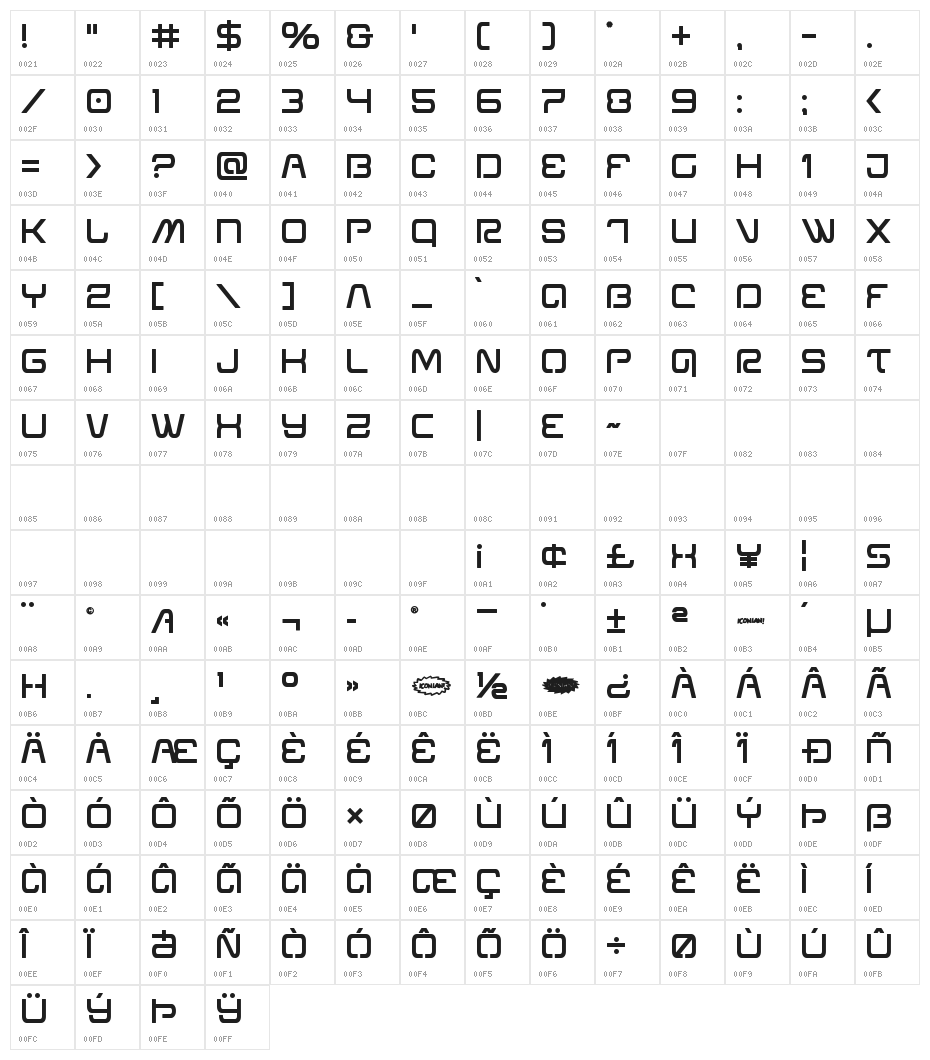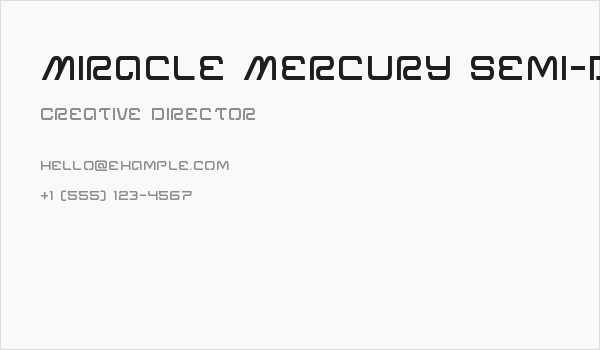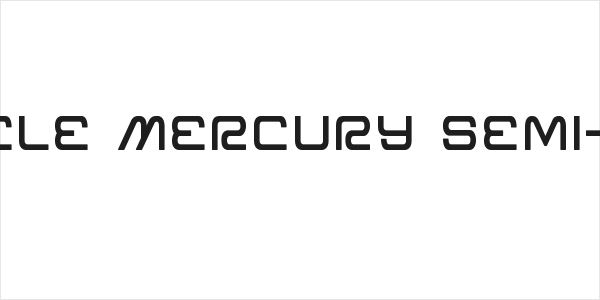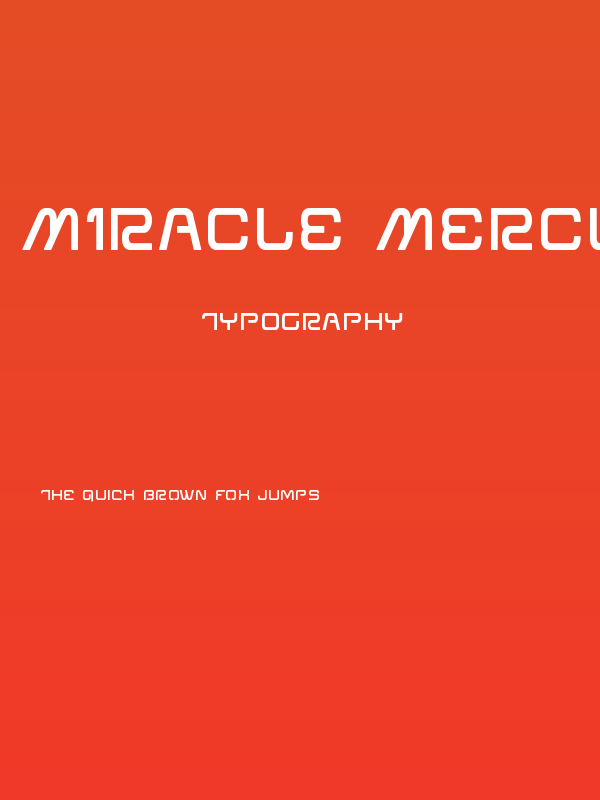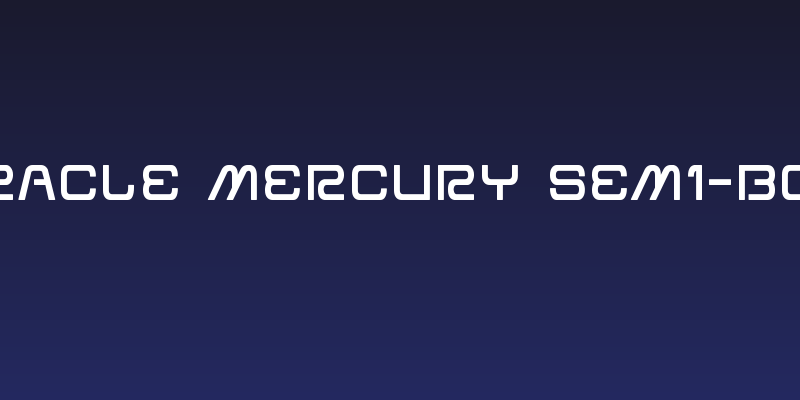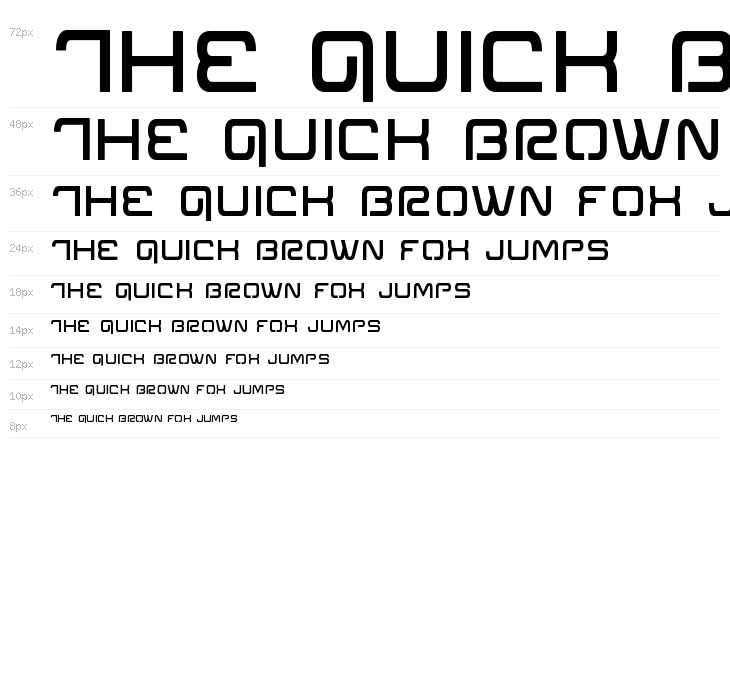
Miracle Mercury Semi-Bold Font
Miracle Mercury Semi-Bold Description
This font features a futuristic and geometric design, characterized by its semi-bold weight and rounded edges. The uppercase and lowercase letters maintain a consistent height, giving it a uniform appearance. The numerals and special characters are designed with the same geometric precision, making them easily legible. The font's style is modern and sleek, with a slight nod to digital or sci-fi aesthetics. Its clean lines and balanced proportions make it suitable for various design applications.
| Use Case | Headlines, Logos, Digital Interfaces |
| Proposed Projects | Ideal for technology branding, sci-fi movie posters, digital interfaces, and modern advertising campaigns. |